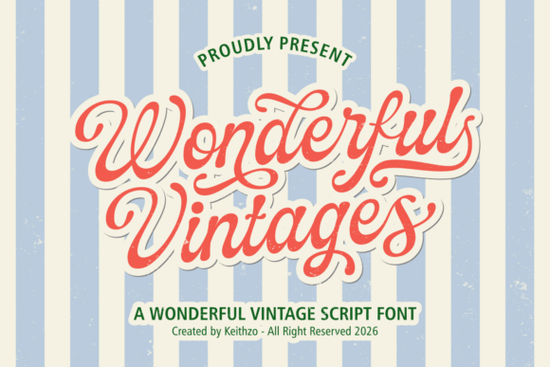
If you're looking for a vintage script font that feels authentic not just decorative Wonderful Vintages Font is worth your attention. It’s not overly ornate or cartoonish; instead, it captures the quiet confidence of mid-century signage: think hand-painted café awnings, 1950s record sleeves, or old apothecary labels. Designers and crafters who value subtlety over flash often find it refreshingly grounded especially when working on projects where tone and era matter as much as legibility.
What makes this font feel genuinely vintage?
It’s in the details: the slight irregularity in stroke weight, the gentle tapering of terminals, and the way letters connect with soft, rhythmic curves not rigid joins. Unlike some retro fonts that lean into kitsch, Wonderful Vintages balances personality with polish. You’ll notice how the lowercase “g” and “y” have subtle loops reminiscent of brush lettering, and how the uppercase “S” and “C” carry just enough flair without sacrificing readability at small sizes.
The full character set includes uppercase, lowercase, numerals, punctuation, and extended Latin glyphs so it supports French, Spanish, Portuguese, German, and more. That means you can confidently use it for bilingual wedding invites, café menus in Toronto or Berlin, or Etsy shop banners targeting international buyers. No awkward substitutions or missing accents.
Where does it work best in real projects?
This isn’t a one-size-fits-all display font. It shines where context supports its voice:
- Vintage apparel & T-shirt designs especially for bands, bakeries, or local shops wanting timeless appeal
- Coffee shop branding from chalkboard-style menu boards to takeout cup logos
- Wedding stationery think save-the-dates or place cards with soft elegance, not fussy calligraphy
- Retro packaging jam jars, soap labels, or craft beer cans aiming for nostalgic warmth
- Social media graphics Instagram posts or Pinterest pins themed around “slow living,” mid-century decor, or handmade goods
Because it’s well-kerned and cleanly vector-based, it cuts cleanly on Cricut and Silhouette machines no jagged edges or rendering issues. And unlike some script fonts that blur when scaled down, Wonderful Vintages holds up well in print layouts, even at 10–12 pt for body text in invitation suites.
How does it compare to other popular script fonts on Creative Fabrica?
If you already own Magic Heart Font, you’ll appreciate how Wonderful Vintages trades whimsy for refinement. Where Magic Heart leans playful and bouncy, Wonderful Vintages settles into something quieter and more intentional. For fans of Gita Lian Font, it offers a less formal, more relaxed alternative less structured, more atmospheric. And compared to Messy Memoir Font, it dials back the “hand-drawn” texture in favor of smoother, more consistent strokes ideal when you want vintage charm without visual noise.
It also shares some DNA with American Route Font in its mid-century roots, but swaps bold signage energy for softer, more intimate expression better suited for artisanal brands than roadside diners.
Is it beginner-friendly?
One thing to keep in mind: like most script fonts, it’s not ideal for long paragraphs or accessibility-critical text (think legal disclaimers or app UI). Reserve it for headlines, logos, and short phrases where its personality enhances meaning not obscures it.
For reference, you can see how designers are using it in real projects on Wonderful Vintages Font’s Creative Fabrica page including mockups, pairing suggestions, and user-uploaded examples.
- ✅ You need a warm, approachable vintage feel not grunge, not art deco, not 80s neon
If those match your needs, Wonderful Vintages Font is a thoughtful, well-executed choice one that quietly strengthens your design instead of shouting over it.